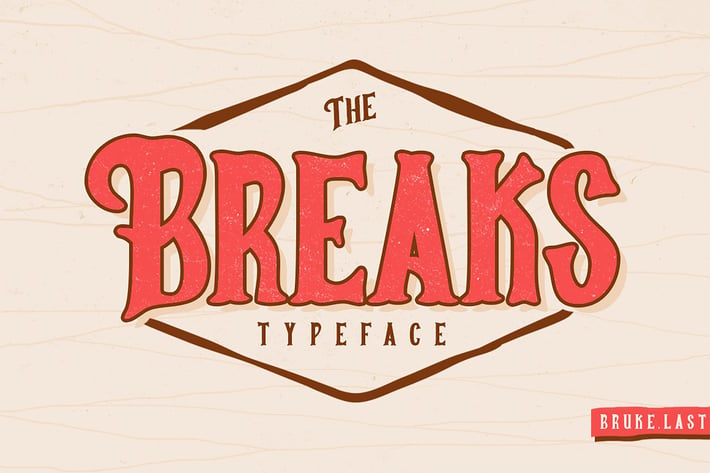
Breaks Typeface
BREAKS TYPEFACE
A New Font Vintage Style. Breaks make it super Vintage Looks into your Graphic Design. Good for Logo, Display, Tittle, Banner.